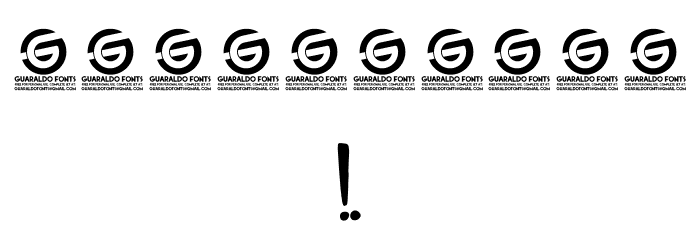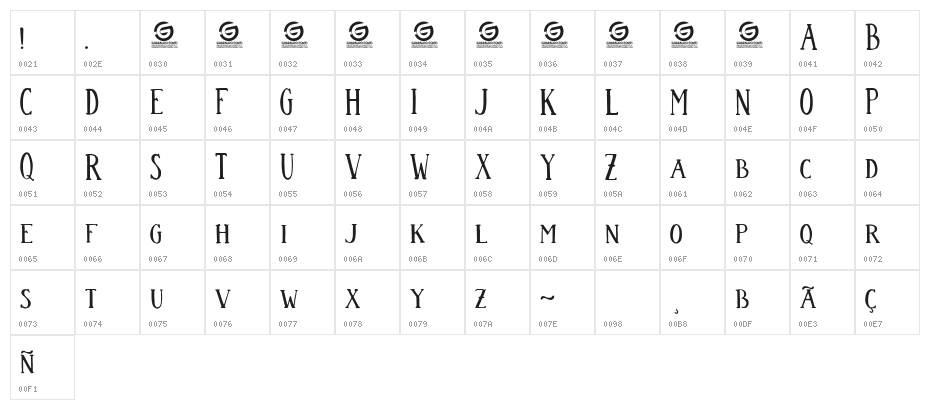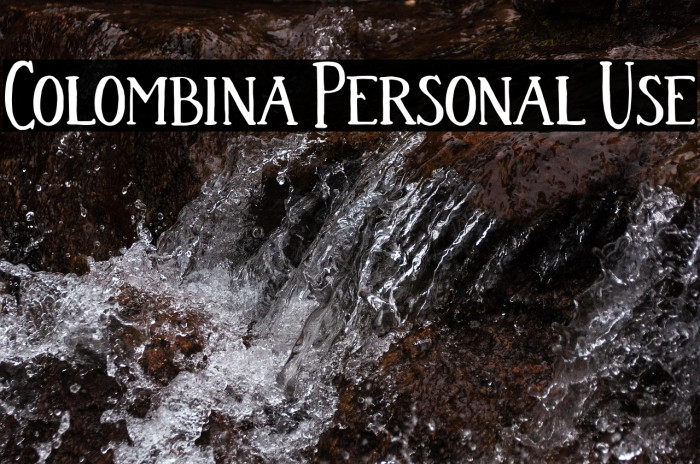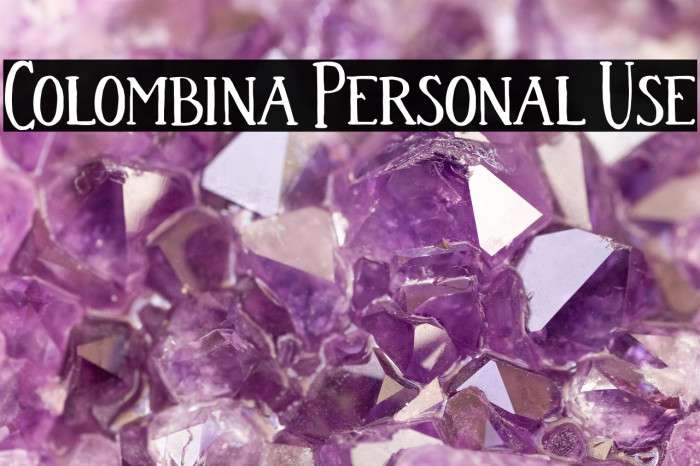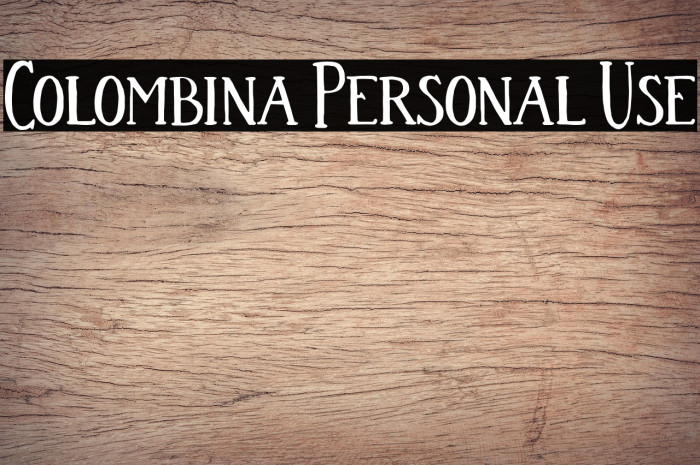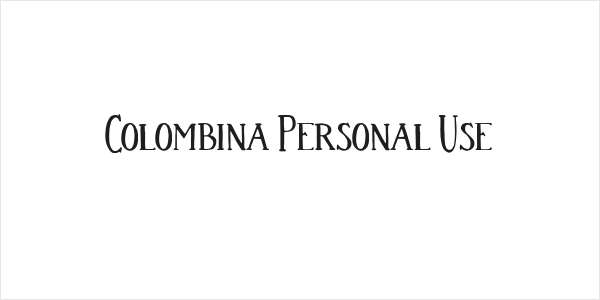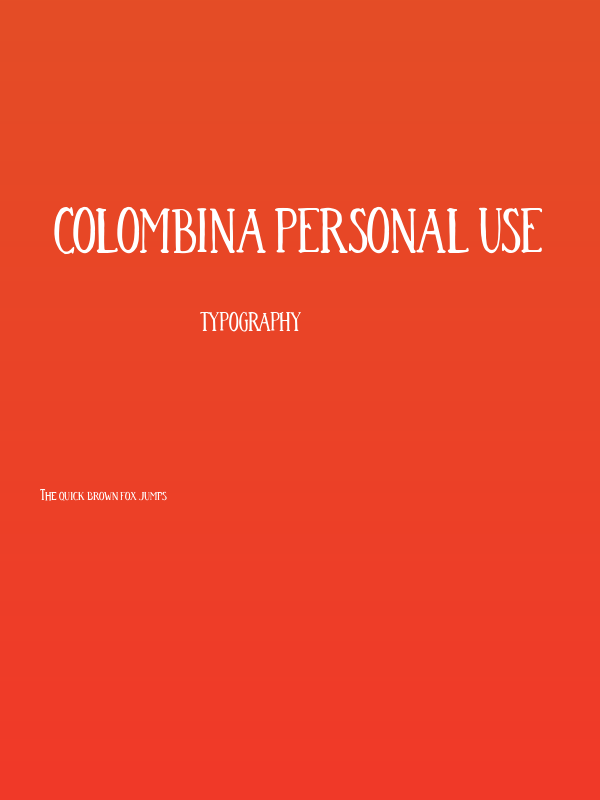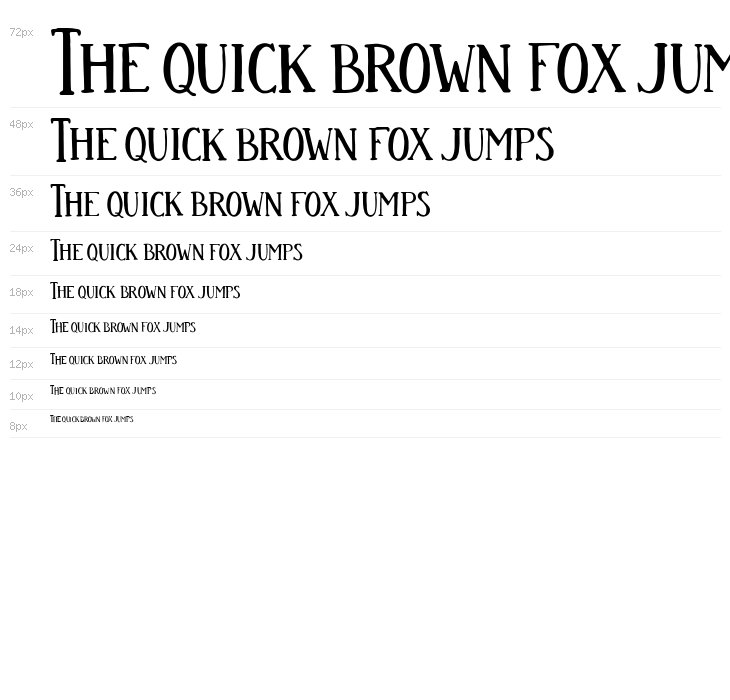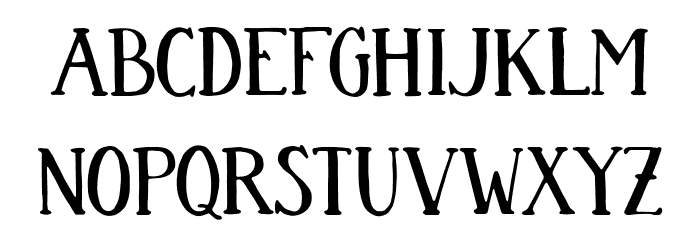
Colombina Personal Use Font
Colombina Personal Use Description
This font features a unique and artistic style with elongated and slightly irregular strokes, giving it a hand-drawn appearance. The uppercase letters are tall and narrow, with varying stroke widths that add a dynamic and lively feel. The lowercase letters maintain the same artistic flair, with some characters having distinctive loops and curves. The overall design is playful yet elegant, making it suitable for creative projects. The special characters, such as the exclamation mark, are bold and expressive, further enhancing the font's personality.
| Overall Style | Artistic, Playful |
| Proposed Projects | Ideal for creative projects such as posters, invitations, and branding that require a distinctive and artistic touch. |